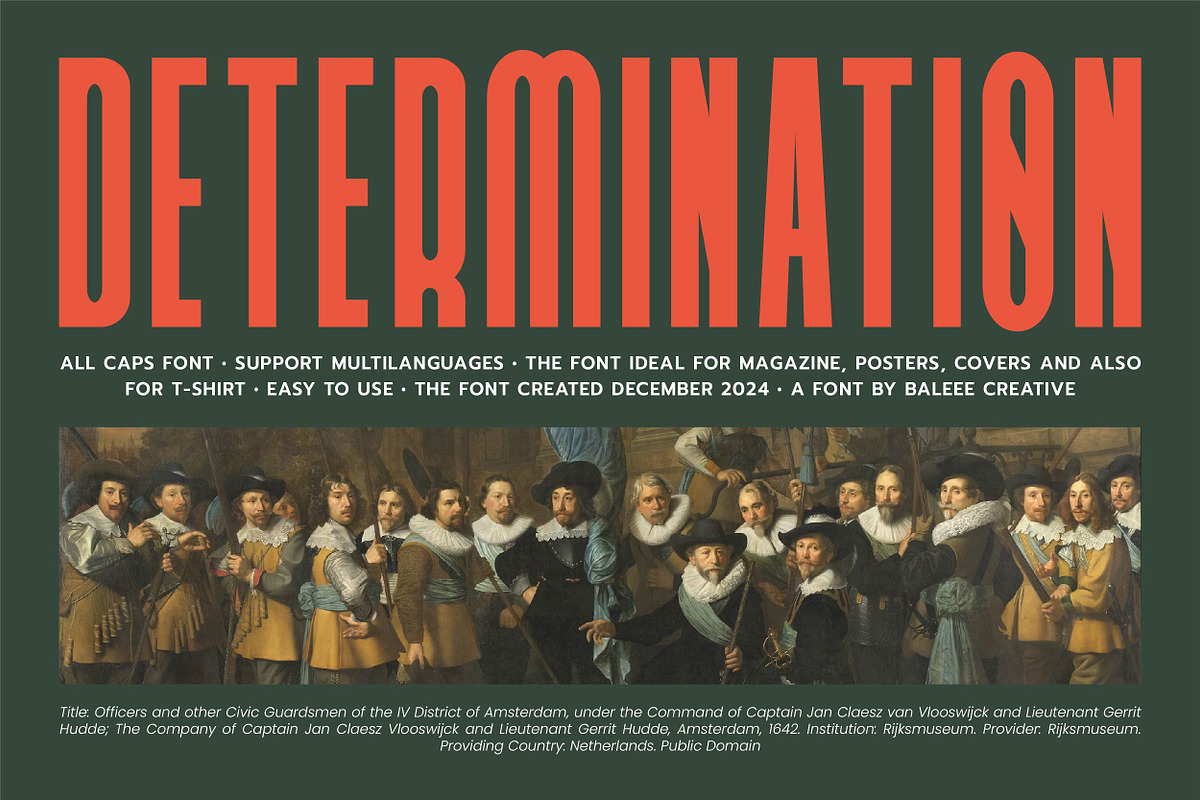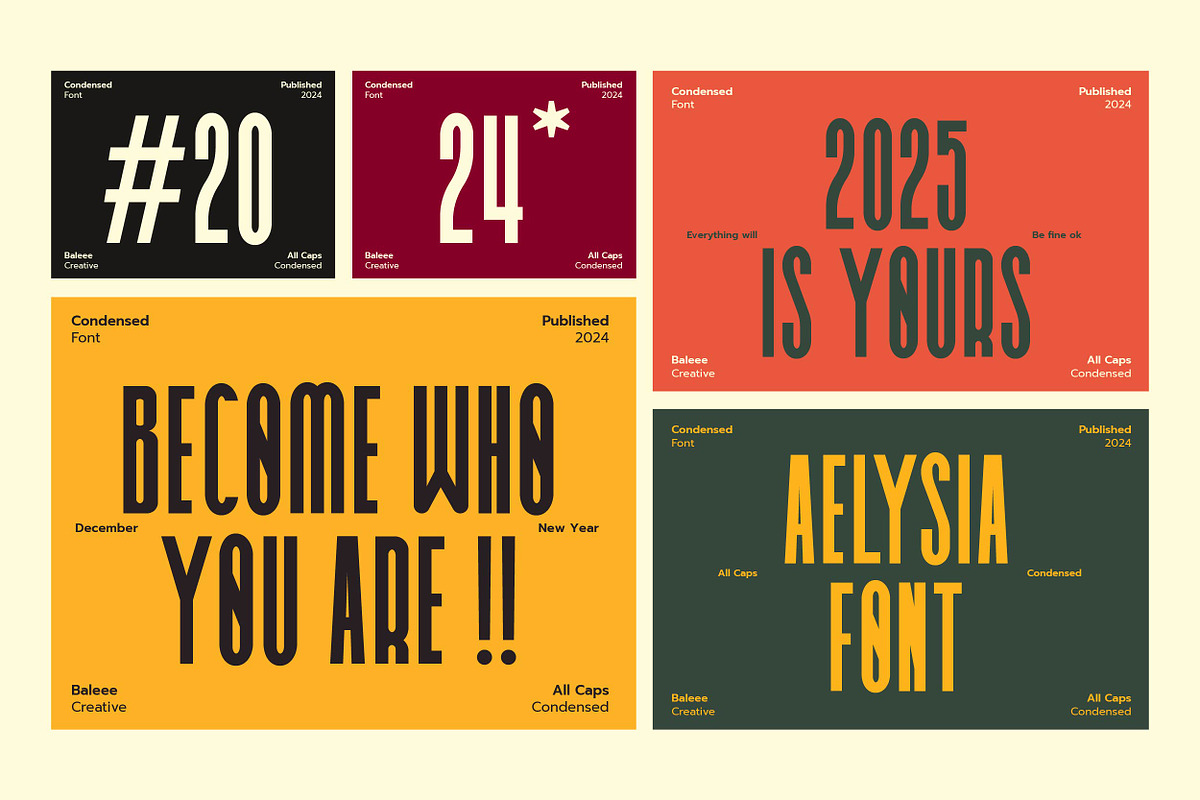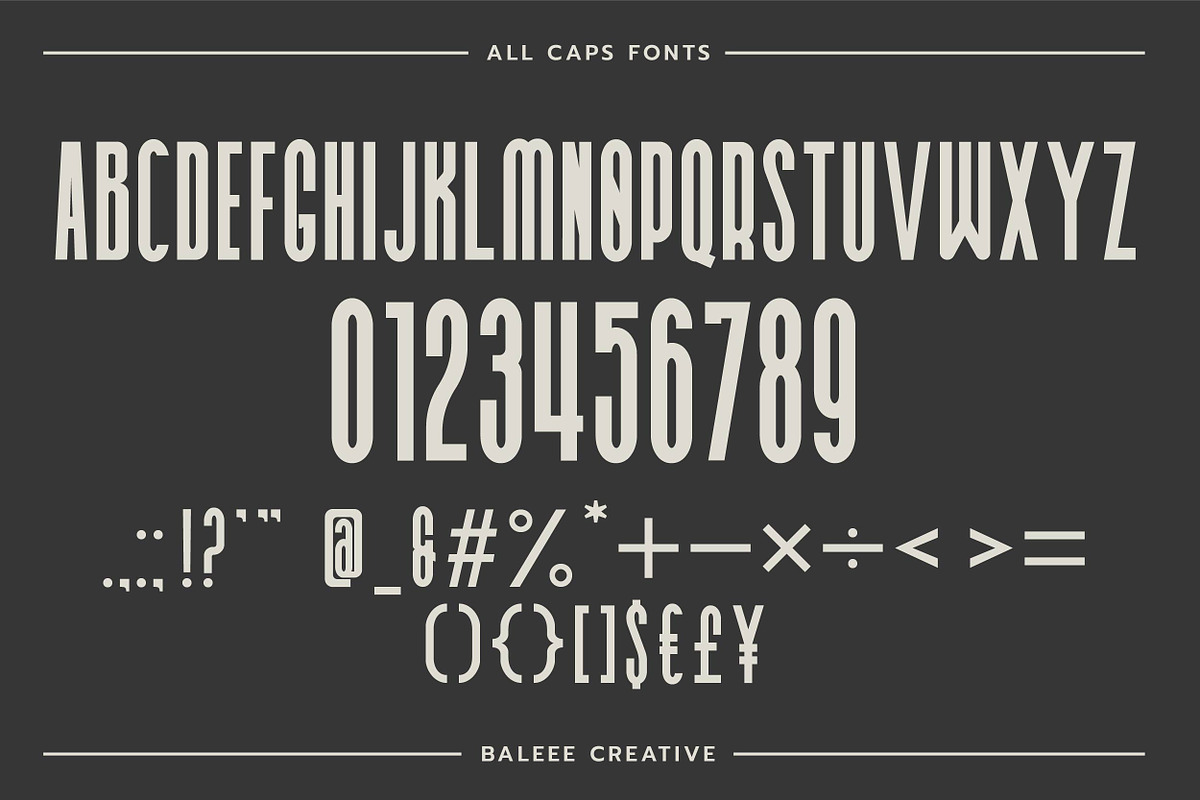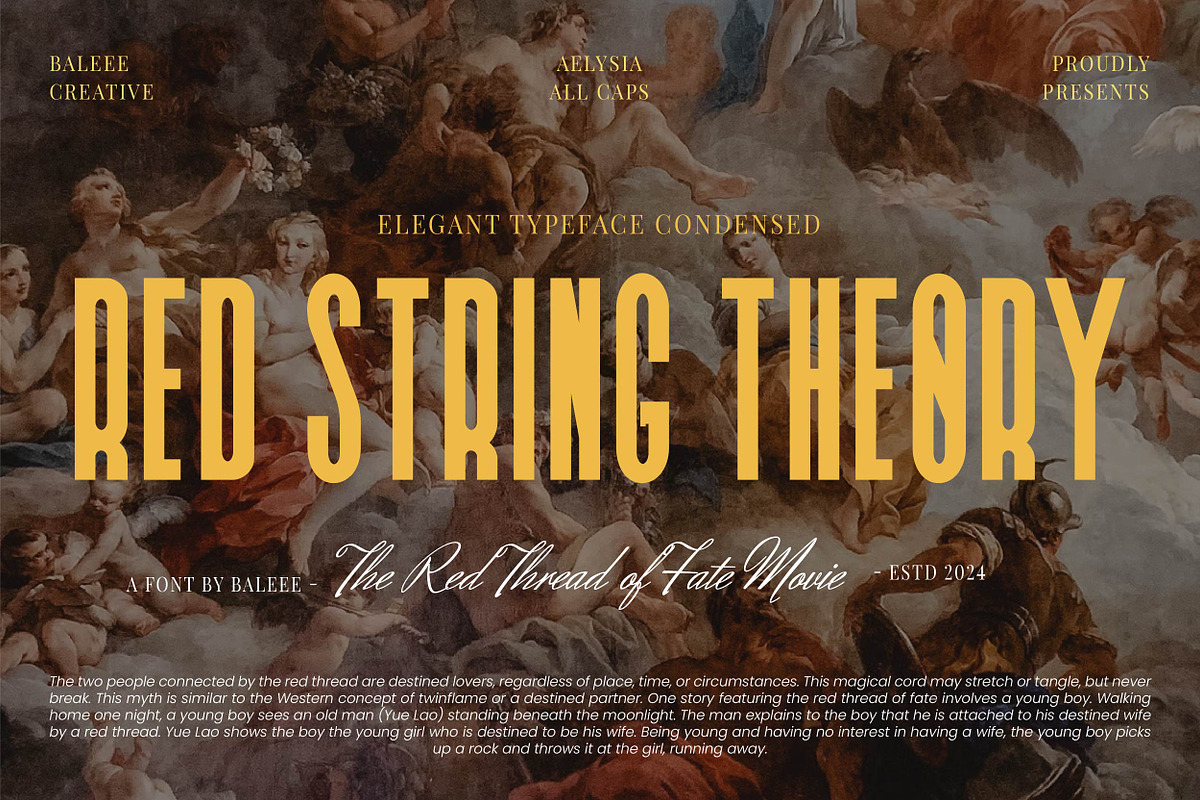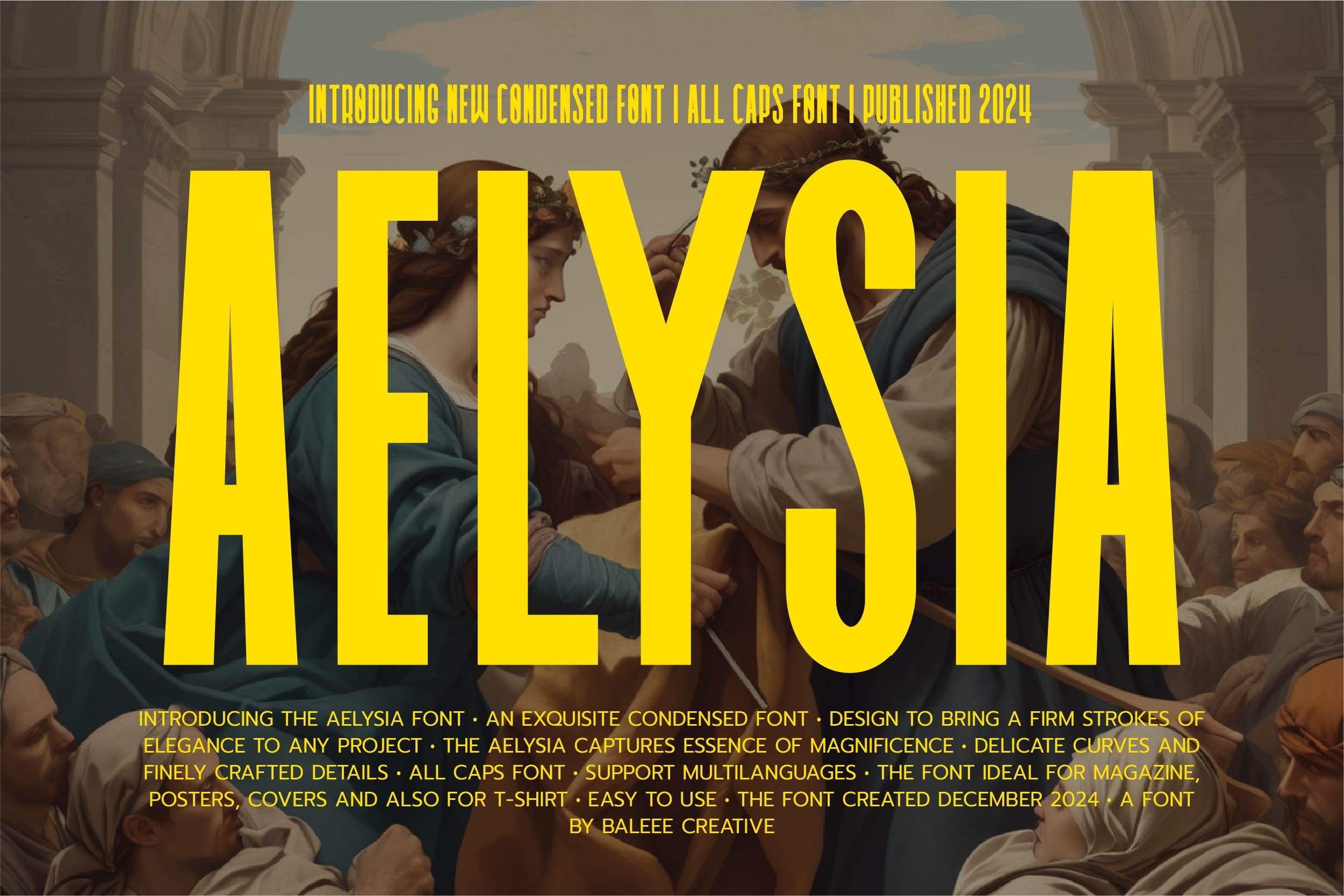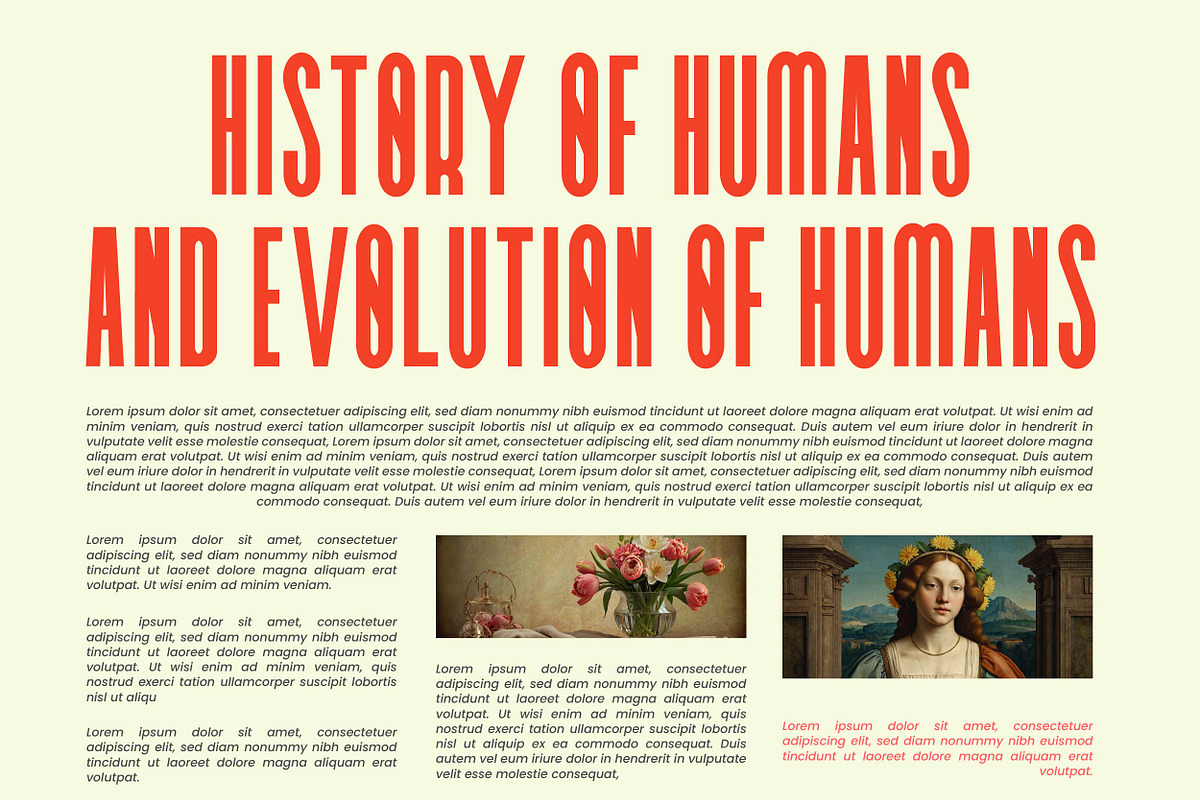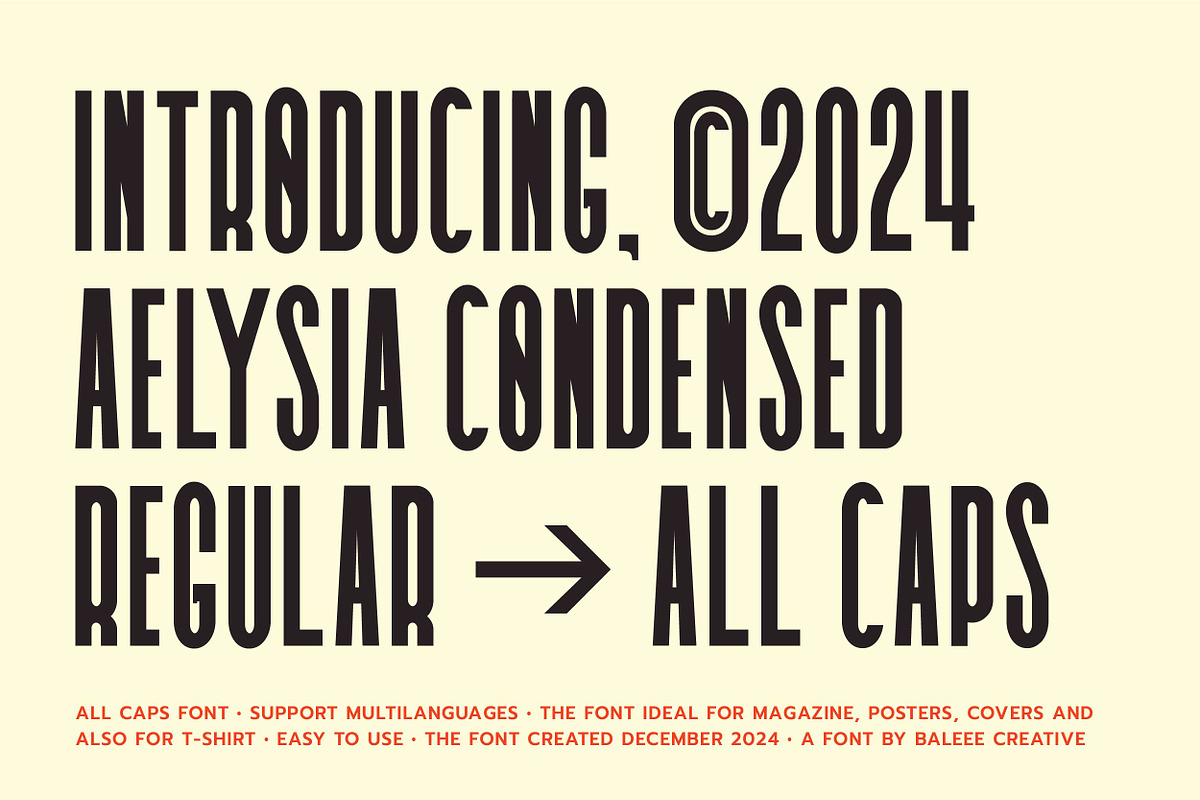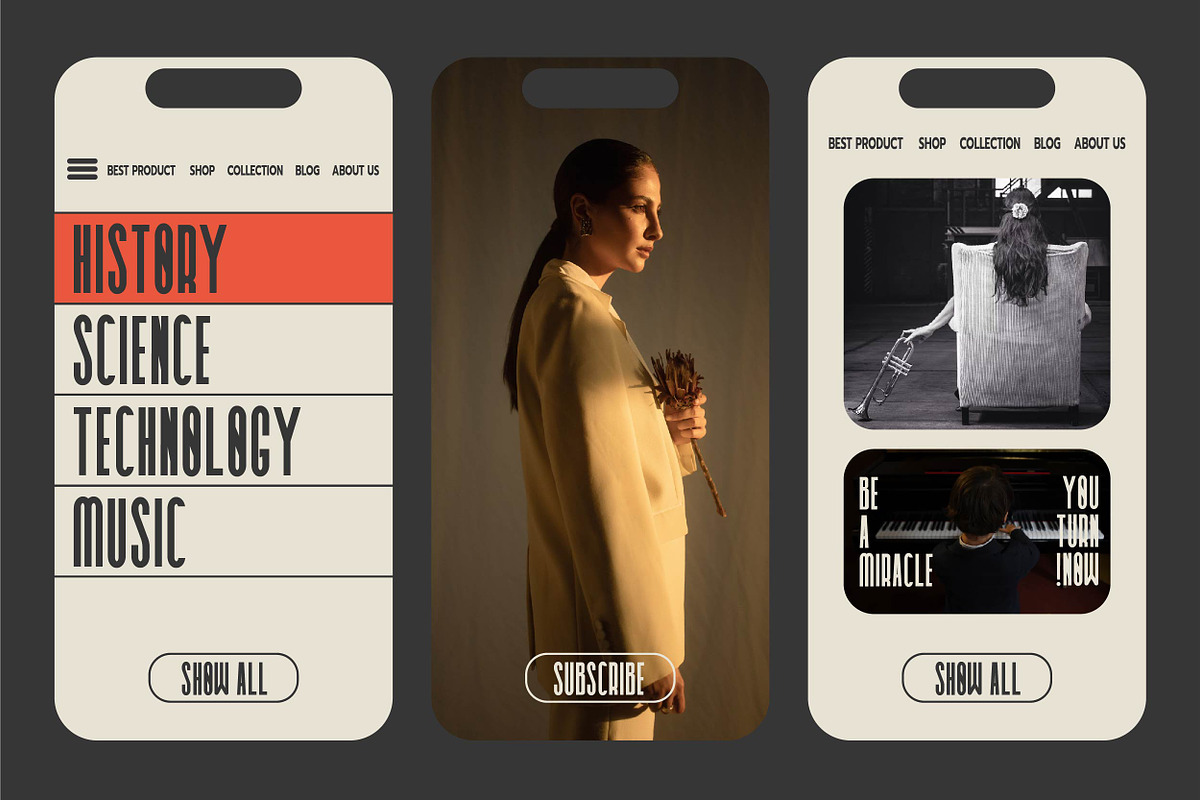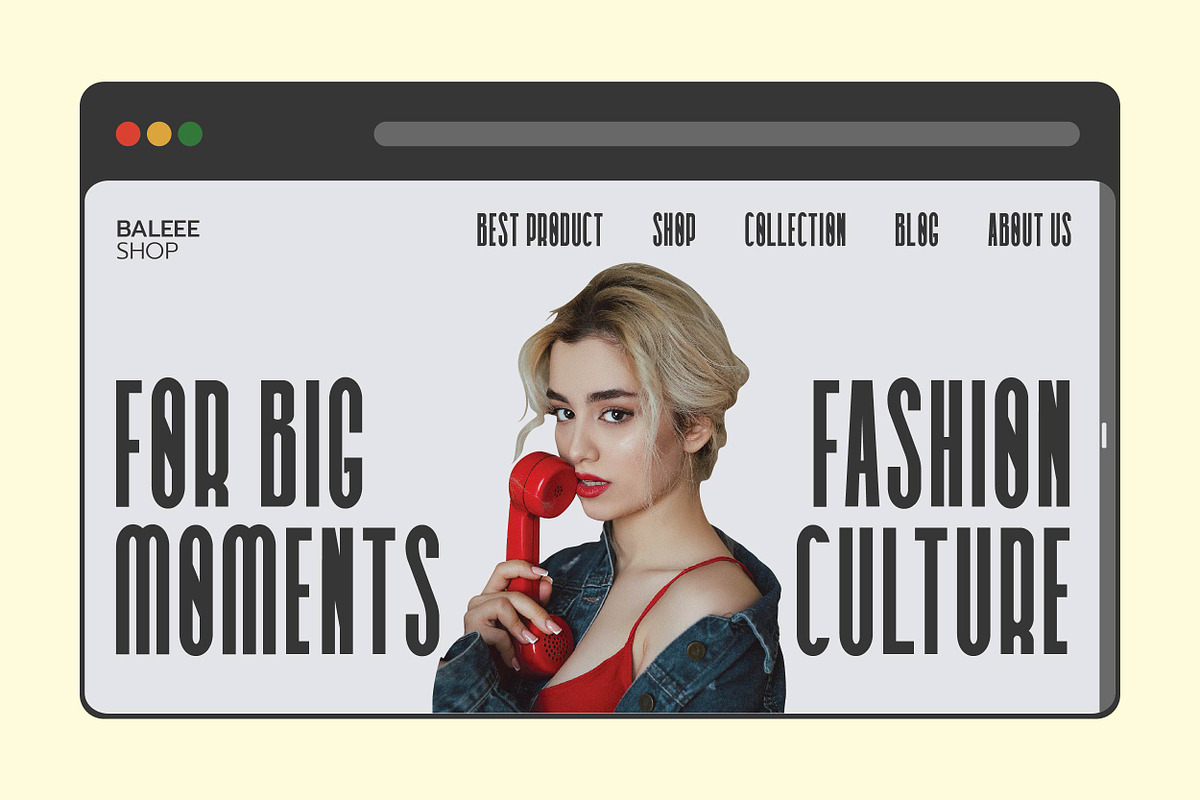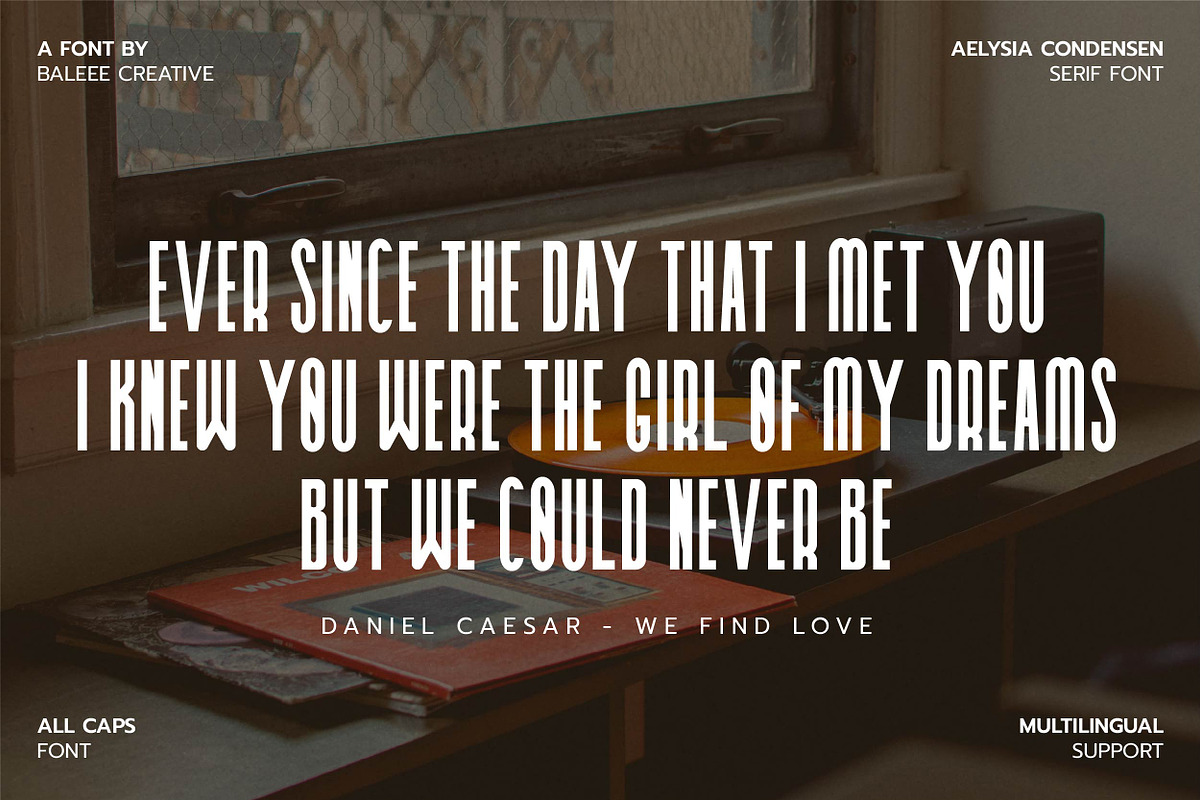
Aelysia Font - Condensed Font
Introducing Aelysia Font - Condensed Font
A condensed font with a modern feel. Equipped with multilanguages and all caps to play around with! This font has a soft and unique with retrospective look. That’s how this font was created to give it an elegant and authentic look!
The Aelysia Font is perfect for: t-shirt, logos, branding, wedding invitations, digital template, business cards, greeting cards, posters, magazines, social media, planner prints and websites.
Features: Stylistic Multilanguages, All caps, numerals, punctuation Accented characters